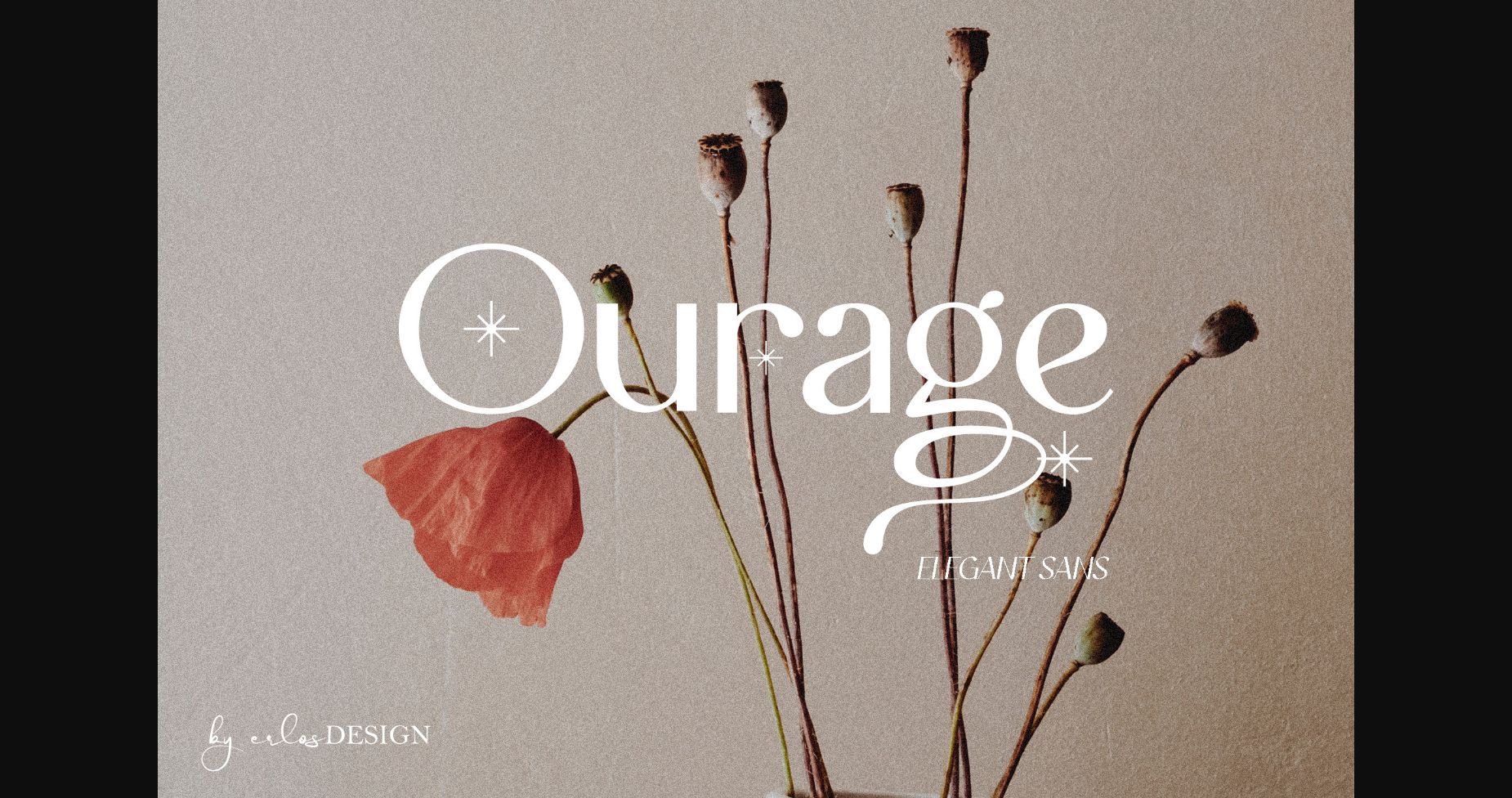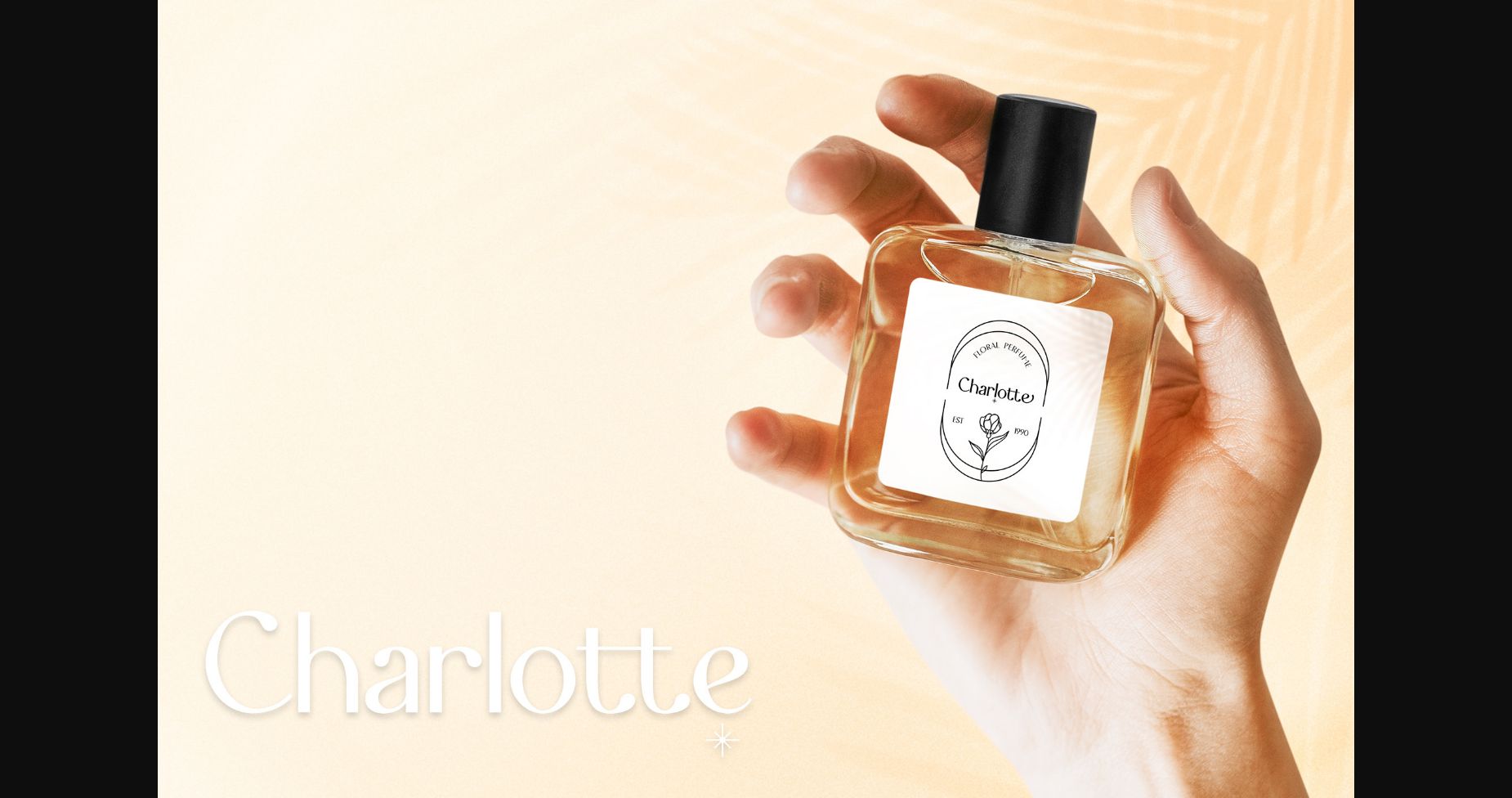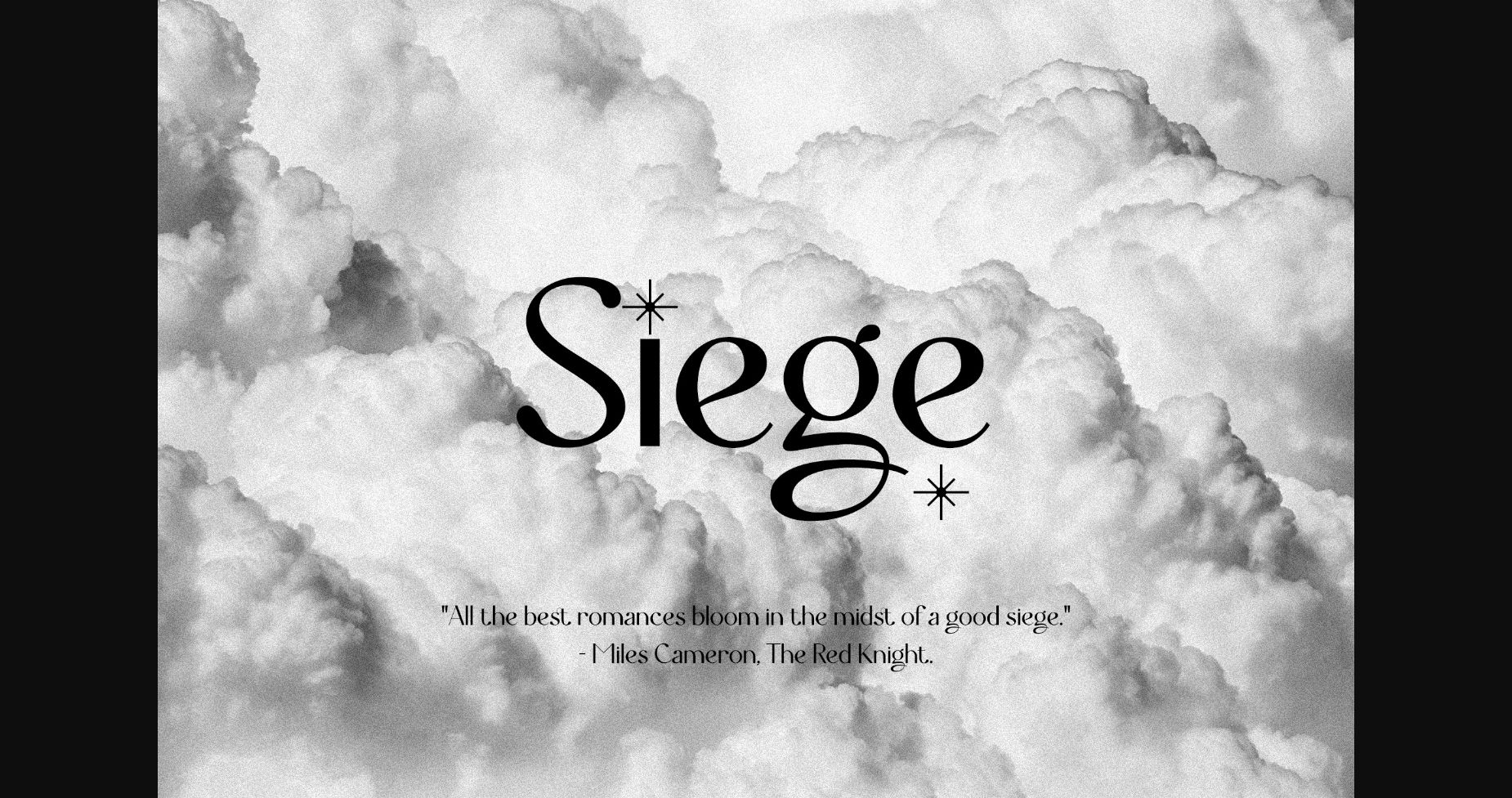
About Ourage Font
Ourage is a display sans serif with modern style and elegant. Add style to your designs with Ourage, It includes elegant lowercase and uppercase letters, numeral, stylistic alternate, ligatures, a large range of punctuation and also multilingual support. Perfects for logo, poster, web design, graphic quotes, magazine cover, album cover , branding and more.